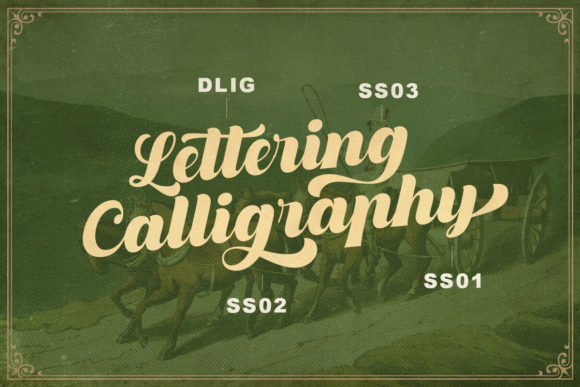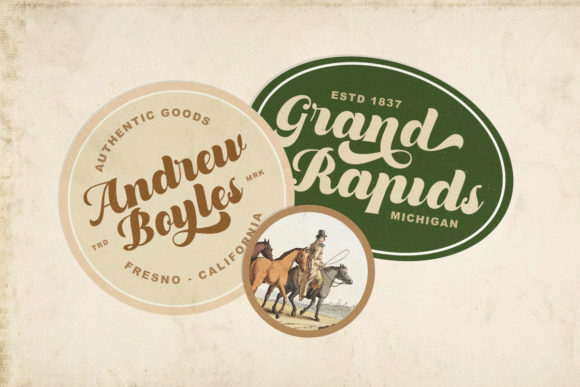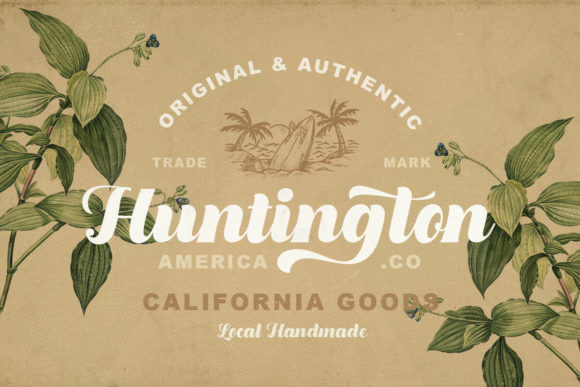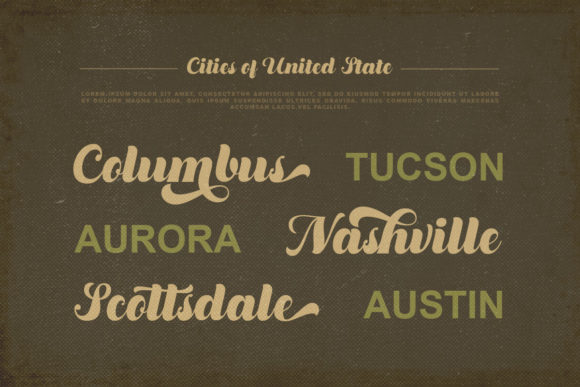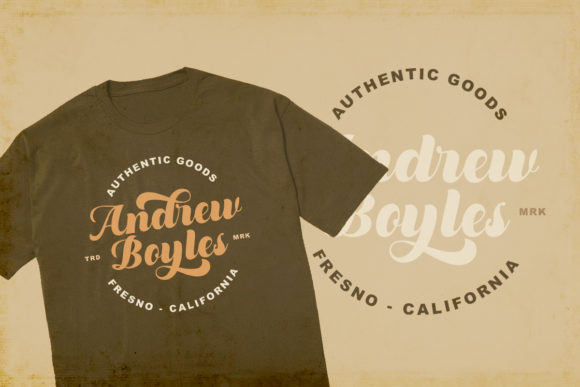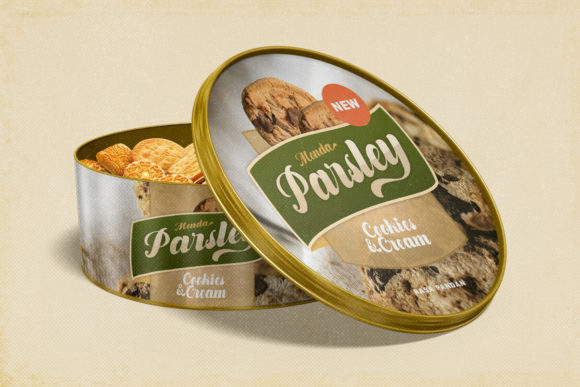
Dustland Font: Elevate Your Designs with a Vintage Flair
In the realm of typography, fonts play a pivotal role in conveying the essence and aesthetic of a design. Among the myriad of fonts available, Dustland Font stands out for its unique blend of vintage charm and modern dynamism. Dubbed as a daring, vintage-styled handwritten font, Dustland is meticulously crafted to infuse headlines and logotype projects with a stylish touch, making it a coveted choice for designers and crafters alike.
The Essence of Dustland Font
Dustland Font is not just any ordinary font; it’s an experience. It reads as strong, confident, and dynamic, capable of transforming your designs with its distinctive character. The font’s vintage inspiration brings a nostalgic feel to your projects, setting them apart in a world dominated by generic and modern typography. Whether you’re working on a branding project, a website design, or even crafting a logo, Dustland Font offers the perfect blend of elegance and ruggedness.
Key Features of Dustland Font
- Vintage Aesthetic: Dustland’s design is deeply rooted in vintage typography, offering a unique nostalgic appeal that can add depth and character to your designs.
- Handwritten Style: The font boasts a handwritten quality, making it appear more personal and engaging. This feature is particularly beneficial for projects that require a touch of humanity and warmth.
- Versatility: Dustland Font is incredibly versatile, suitable for a wide range of projects from logos and headlines to packaging and advertising materials.
- Legibility: Despite its vintage and handwritten nature, Dustland maintains high legibility, ensuring that your message is conveyed clearly and effectively.
Applications of Dustland Font
The applications of Dustland Font are vast and varied. Here are a few scenarios where this font truly shines:
- Branding and Logos: Use Dustland to create memorable logos and brand names that stand out with a vintage flair.
- Web Design: Add a touch of personality to your website with Dustland, making your headlines and titles not only informative but also stylistically appealing.
- Marketing Materials: From brochures to billboards, Dustland Font can elevate your marketing materials, giving them a distinctive look that captures attention.
- Packaging: For product packaging, Dustland can add a nostalgic or premium feel, enhancing the overall unboxing experience.
Why Choose Dustland Font?
In a market flooded with fonts, Dustland stands out for several reasons:
- Uniqueness: It offers a fresh take on vintage typography, making your designs instantly recognizable.
- Emotional Connection: The nostalgic feel of Dustland can evoke emotions and create a deeper connection with your audience.
- Professionalism: Despite its vintage inspiration, Dustland exudes professionalism, suitable for high-end brands and projects.
Dustland Font is more than just a typeface; it’s a design statement. Its unique blend of vintage charm and modern dynamism makes it an invaluable asset for designers and crafters looking to imbue their projects with a stylish and nostalgic touch. Whether you’re aiming to create a bold brand identity, an engaging website, or captivating marketing materials, Dustland Font is poised to elevate your designs to new heights. Explore the possibilities with Dustland Font and discover how it can transform your creative projects into memorable experiences.